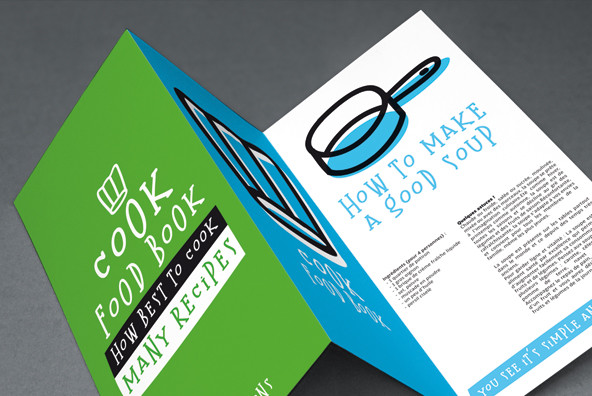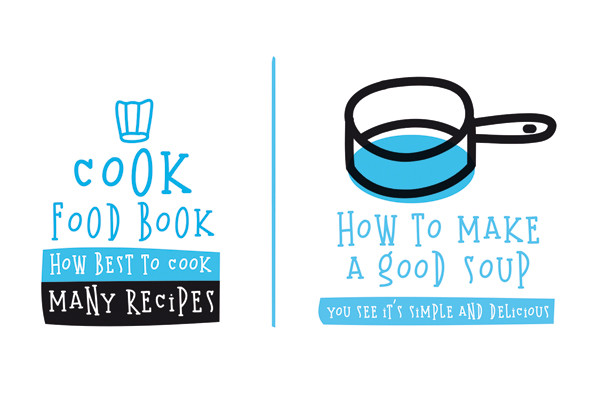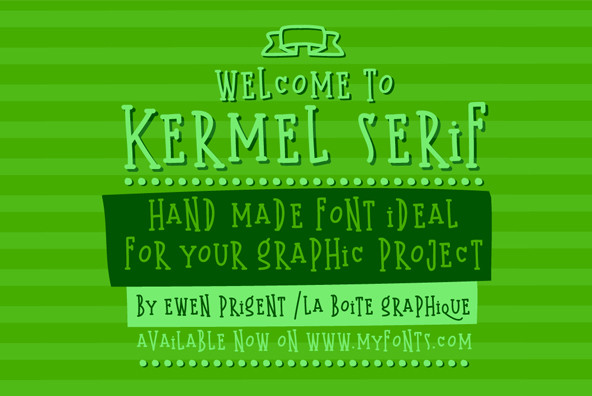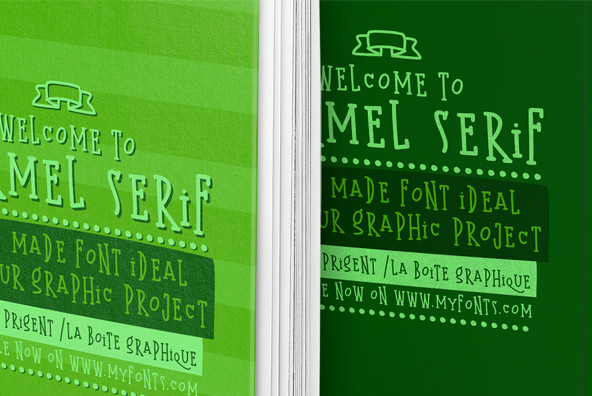
Kermel Serif Font
Kermel Serif is a hand made font ideal for your graphic project.
Born in 1980, Ewen Prigent exercises in Brest (France) the profession of independent designer since 2004 under the signature of La Boîte Graphique after completing his studies at the University of Fine Arts of Rennes 2. he creates fonts "fanciful" titration since 2008.